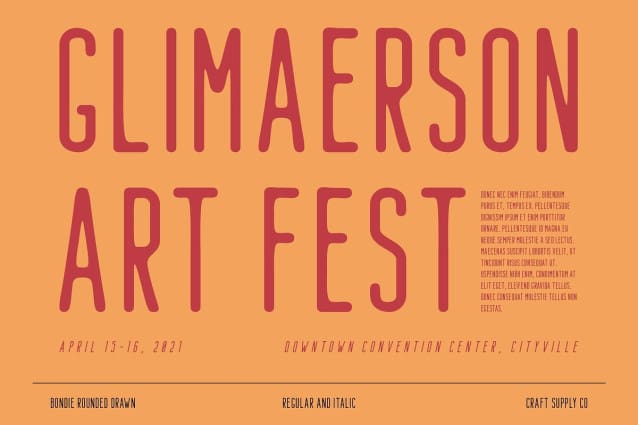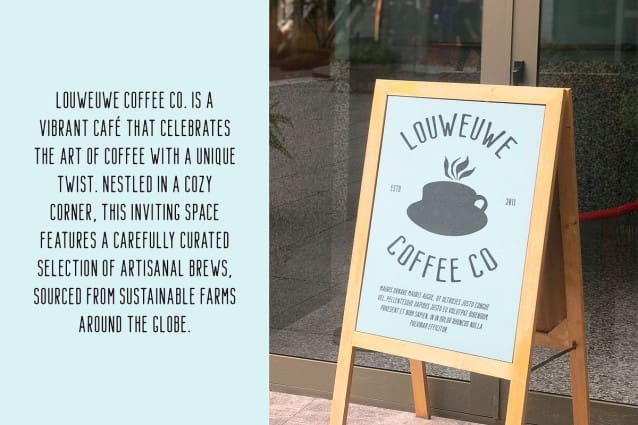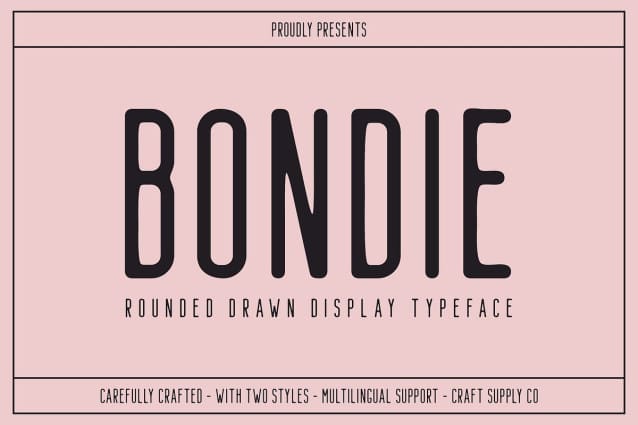
Bondie Rounded Drawn Font
Bondie Rounded Drawn Font is a modern sans serif font that features a unique combination of condensed forms and rounded corners, resulting in a clean and friendly appearance. The smooth, drawn effect lends an artisanal touch to the font, making it an excellent choice for contemporary designs that seek to balance professionalism with warmth. This font is designed to make a lasting impression while communicating a sense of approachability.
Condensed Shapes for Space Efficiency The condensed design of this rounded drawn font maximizes space efficiency without sacrificing readability. This characteristic is particularly valuable for applications such as headlines, banners, and promotional materials where every inch counts. The condensed forms allow for a bold visual presence while ensuring clarity in communication, making it ideal for both digital and print projects that require impactful messaging.
Smooth Drawn Effect for a Personal Touch What sets this rounded drawn font apart is its smooth drawn effect, which adds a personal and handcrafted feel to the font. This artisanal quality makes the font feel unique and relatable, providing a warm and inviting aesthetic that resonates with audiences. The hand-drawn appearance is perfect for creative branding and design projects that aim to create a connection with viewers, fostering a sense of community and engagement.